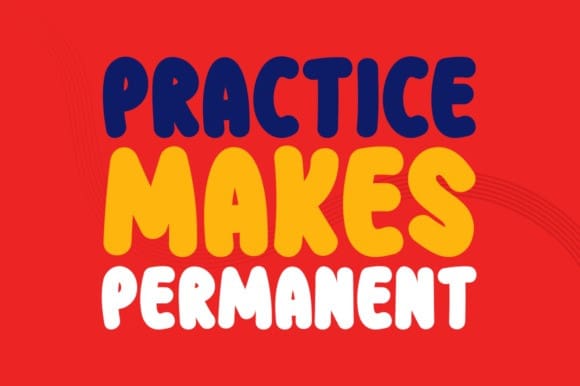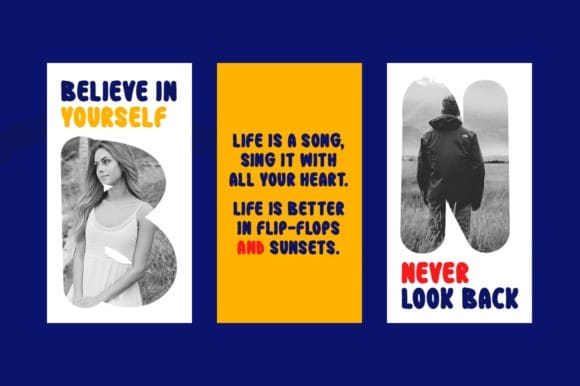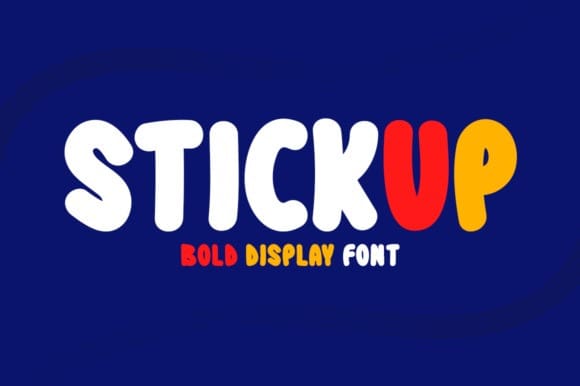
Stickup Display Font
Stickup Display Font is an incomparable, simple, and bold display font. It can easily be matched to an incredibly large set of projects, so add it to your creative ideas and notice how it makes them stand out!